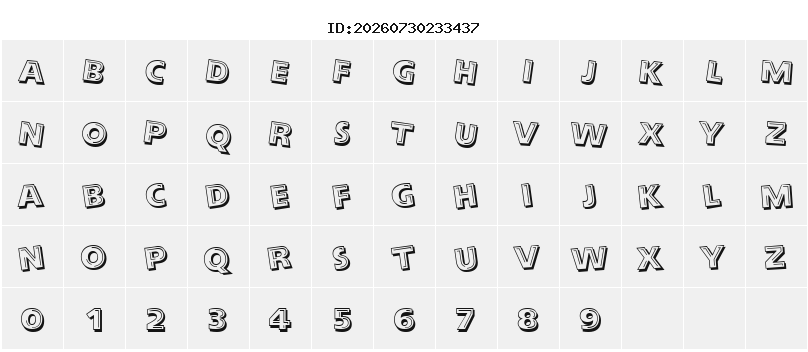
LooneyTunes Tilt BT Preview
• Font Name: LooneyTunes Tilt BT
• Font Style: Tilt
• Font ID: Looney Tunes Tilt, Humanist 077
• Full Font Name: Looney Tunes Tilt BT
About LooneyTunes Tilt BT.ttf
LooneyTunes Tilt BT.ttf is a modern, elegant sans-serif font designed for ultimate readability and visual harmony. Perfect for branding, headlines, web design, and print materials.